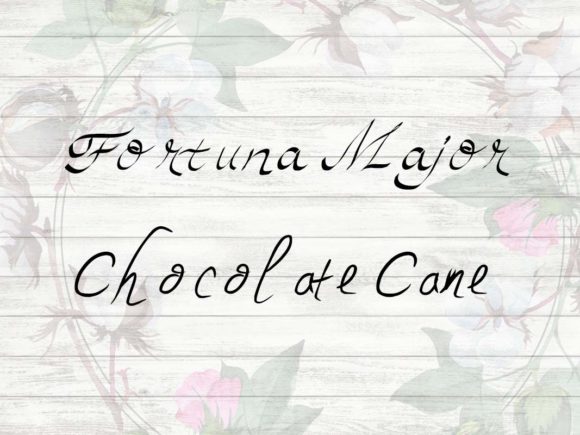
Chocolate Cane Duo Font
About Chocolate Cane Duo Font
The Chocolate Cane is an amazing font duo. Both styles include elegant characters which can be combined perfectly.